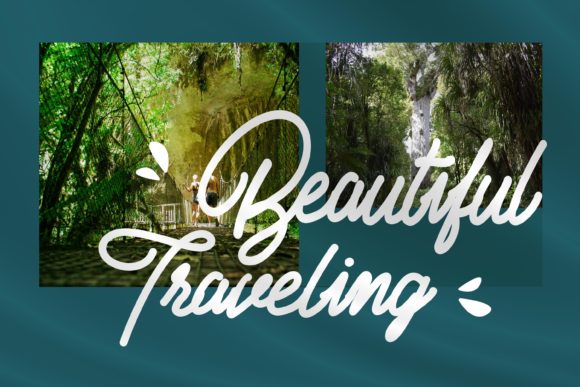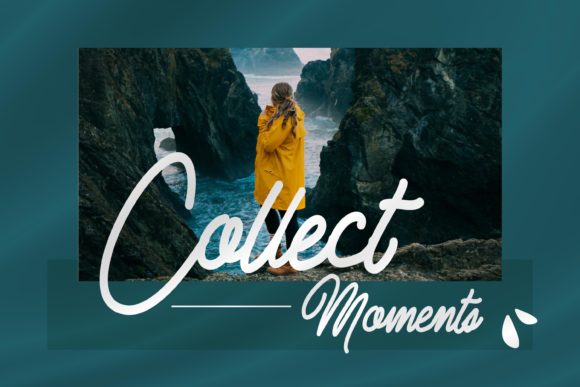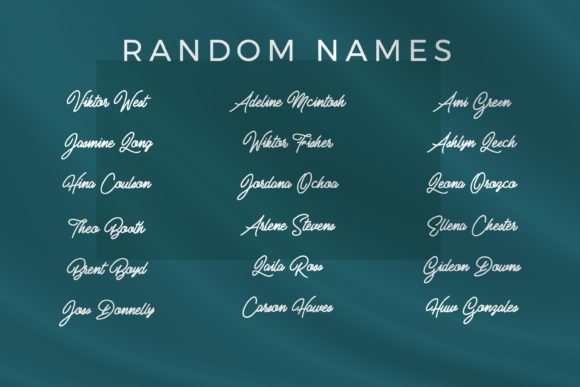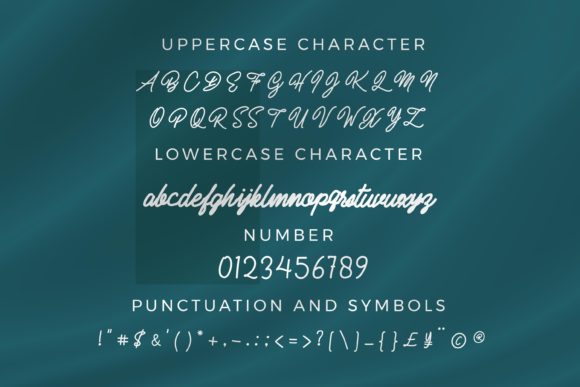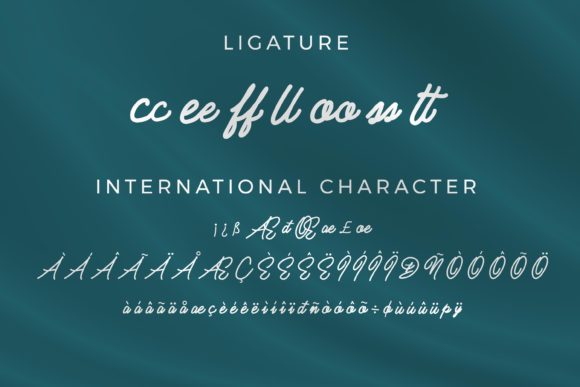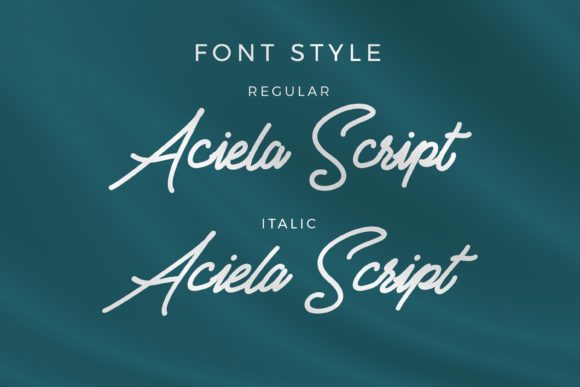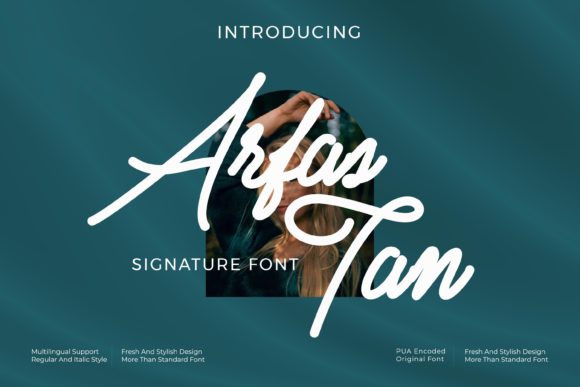
I’ll never forget the countless hours I spent searching for the perfect font for a client’s wedding invitation project. The design brief called for something elegant, yet modern, with a touch of sophistication. As I scrolled through font after font, I found myself stuck between options that were either too thin, too thick, or just plain bland. That’s when I stumbled upon Arfas Tan Font, and my design woes disappeared like magic ✨.
Arfas Tan Font: A Timeless Elegance
Arfas Tan is an elegant script font that exudes a contemporary atmosphere while maintaining impeccable form, inspired by timeless classic calligraphy. This font strikes the perfect balance between being not too thin and not too thick, making it versatile and varied. It was designed to enhance the beauty of your projects, and I’m here to tell you it delivers ✅.
• ✨ Elegant and sophisticated feel, perfect for high-end projects
• ✅ Versatile and varied, suitable for a range of design applications
• 💫 Beautifully crafted, with attention to detail and a clear understanding of typography principles
• 📚 Extensive OpenType features, glyphs, and stylistic alternates for added creativity
• ⚠️ Some users may find the font a tad too condensed for certain design applications
• 🤔 Limited availability of language support, which might be a concern for projects requiring specific character sets
Designer Inspiration: The Story Behind Arfas Tan Font
Arfas Tan Font was crafted with passion and dedication by a team of designers who aimed to create a timeless and elegant script font. Inspired by classic calligraphy, they carefully crafted each letterform to exude sophistication and refinement. The result is a font that not only looks stunning but also feels luxurious to the touch 💫.
Q: What is Arfas Tan Font?
A: Arfas Tan Font is an elegant script font with a contemporary atmosphere and impeccable form, inspired by timeless classic calligraphy.
Q: What design applications is Arfas Tan Font suitable for?
A: Arfas Tan Font is versatile and varied, making it suitable for a range of design applications, from wedding invitations and high-end branding to packaging and editorial design.
Q: Does Arfas Tan Font support OpenType features?
A: Yes, Arfas Tan Font comes with extensive OpenType features, glyphs, and stylistic alternates, allowing for added creativity and flexibility in your designs.